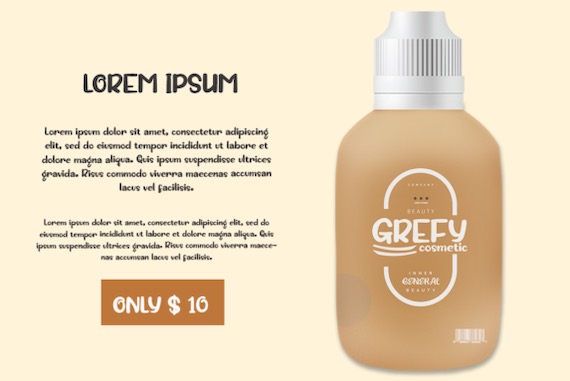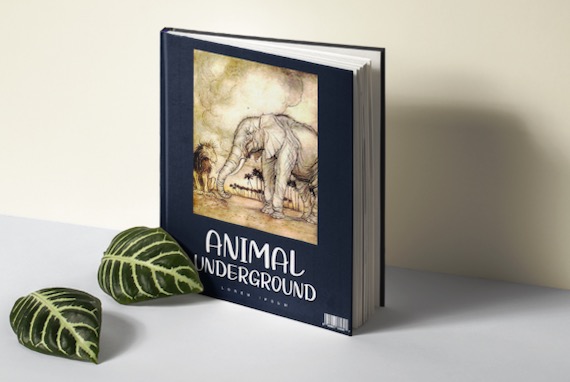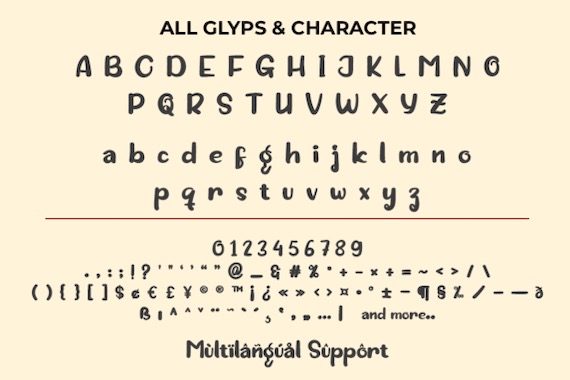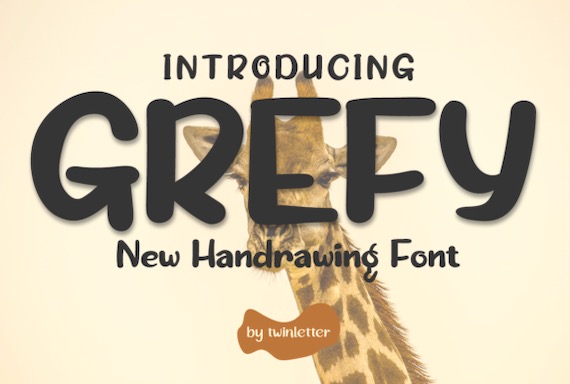
About Grefy Font, this is a delicate and beautiful display font that was created and shared by Twinletter Studio. It has a friendly and cheerful look that gives your design projects a professional look.
Grefy Display Font
Designer Name: Twinletter Studio